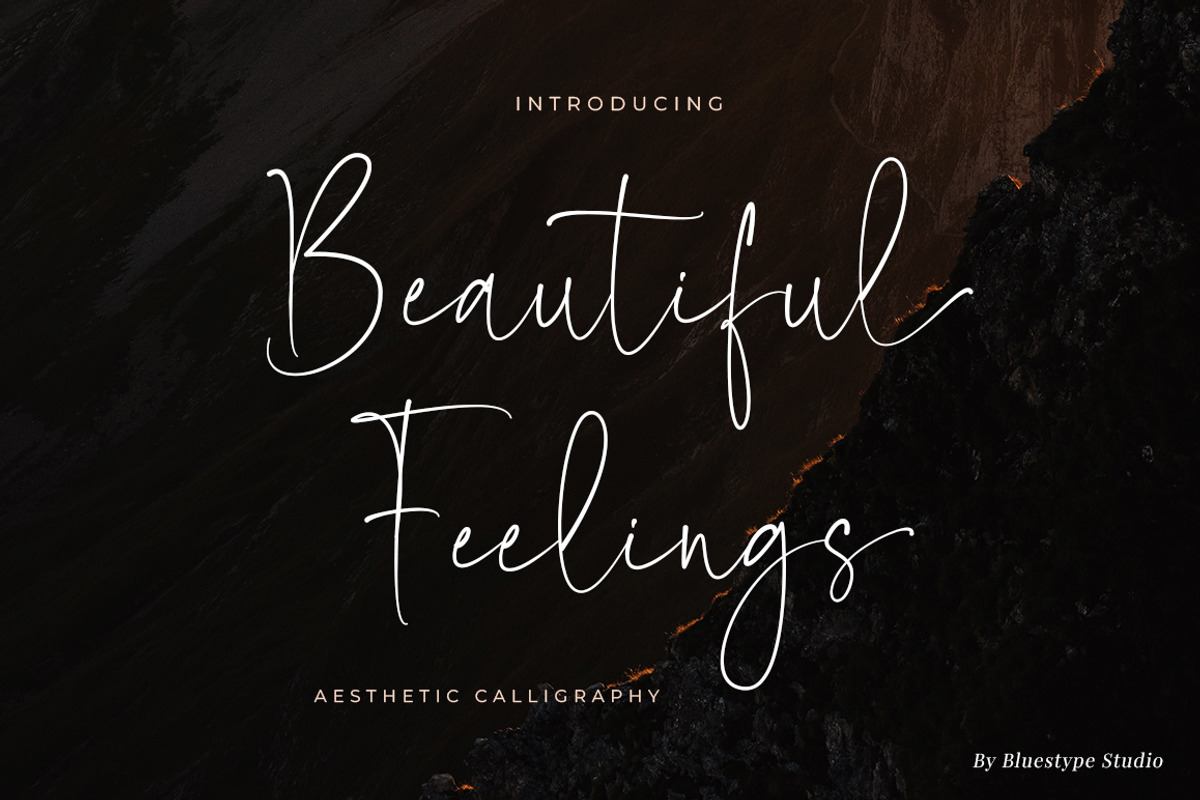
Beautiful Feelings - Aesthetic Fonts Free Download
Beautiful Feelings - Aesthetic Fonts is perfect for aesthetic social media graphics, emotional brand identities, mindful wellness materials, artistic portfolio projects, dreamy wedding invitations, gentle lifestyle blogs, soft beauty product packaging, heartfelt greeting cards, inspirational quote designs, peaceful meditation graphics, tender personal branding, and soulful creative communications.
Beautiful Feelings - Aesthetic Fonts is exciting because it captures the ethereal beauty and emotional depth of human feelings through its carefully curated collection of aesthetic typefaces that embody the gentle poetry of emotions and the visual language of the heart. This enchanting font collection features diverse styles that range from delicate script variations to soft sans-serif options, each designed to evoke specific feelings and create meaningful connections with audiences seeking authentic emotional expression. The collection's aesthetic sophistication transforms ordinary text into visual poetry that speaks directly to the soul.
Beautiful Feelings - Aesthetic Fonts includes comprehensive font families: Gentle Emotional Script, Soft Dreamy Sans, Delicate Feeling Serif, Ethereal Light Style, Tender Handwritten Touch, Peaceful Minimalist Format, Romantic Flowing Letters, Mindful Calm Typography, Artistic Expression Font, Heartfelt Personal Style, Soulful Aesthetic Script, Inspirational Message Font, Poetic Gentle Writing, Emotional Connection Style, and Special Feeling Symbols, providing unlimited creative possibilities for aesthetic and emotional design projects that celebrate human feelings and artistic sensitivity.
This soulful typography collection transforms digital communications into beautiful emotional experiences through its authentic aesthetic principles and feeling-focused design language. Beautiful Feelings - Aesthetic Fonts Free Download enables designers and sensitive brands to access premium aesthetic typography that instantly adds emotional depth, artistic beauty, and gentle sophistication to any creative project. The collection's diverse aesthetic approaches ensure perfect emotional expression while maintaining consistent quality and distinctive feeling-based character across all styles.
Wellness brands, artistic creators, and emotionally conscious businesses trust Beautiful Feelings - Aesthetic Fonts for its ability to communicate sensitivity, authenticity, and emotional intelligence to audiences seeking meaningful connections and aesthetic experiences. The typeface collection's gentle construction performs beautifully across various applications, from intimate personal communications to large-scale aesthetic branding campaigns. Its extensive character support includes multilingual capabilities and emotion-inspired design elements that enhance sensitive brand presentations.
The design philosophy behind Beautiful Feelings - Aesthetic Fonts celebrates the beauty of human emotions and the power of aesthetic typography to create genuine connections and meaningful visual experiences. This emotion-focused approach creates a font collection that feels genuinely aesthetic while maintaining contemporary relevance across different emotional contexts and sensitive brand expressions.
Whether creating wellness brand identities, aesthetic social media content, or emotionally resonant marketing campaigns, this feelings-based collection delivers exceptional results that touch hearts and inspire souls. Download Beautiful Feelings - Aesthetic Fonts today and discover how premium aesthetic typography can transform your design projects into beautiful expressions of human emotion, artistic sensitivity, and the gentle beauty that defines the most meaningful and heartfelt communications.